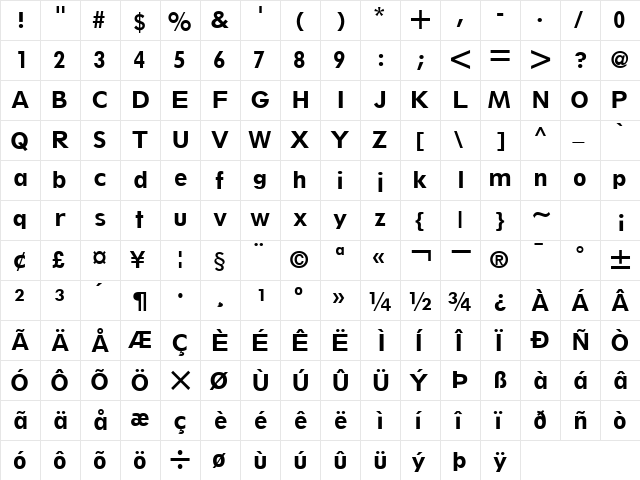
ThinxSSK Bold
Design Context for ThinxSSK Typeface
ThinxSSK takes a measured approach to typography — its balanced proportions and neutral character make it a reliable workhorse for both digital and print work. Its bold stroke weight gives it real presence on the page.